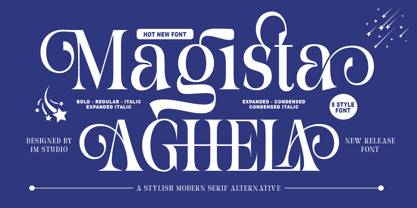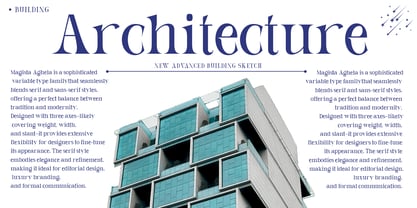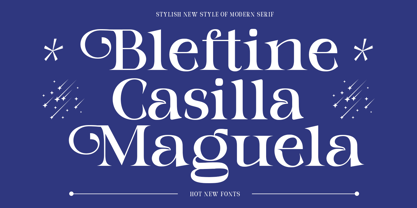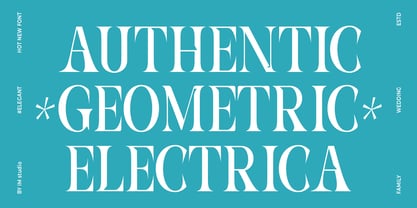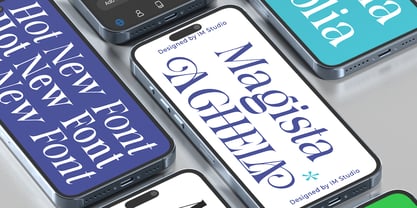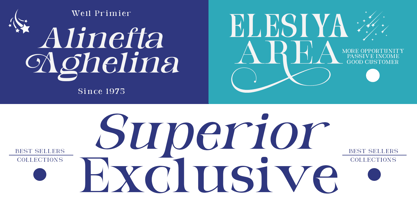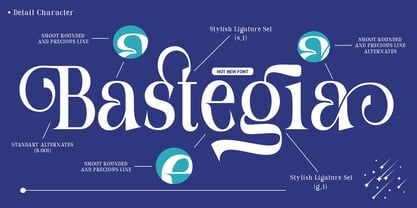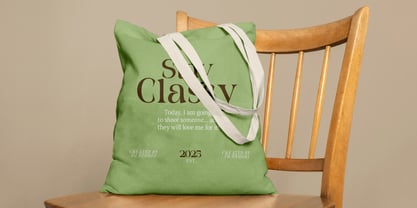
Magista Aghela
by IM Studio
The Magista Aghela Font Family was designed by Ikhsan Maulana and published by IM Studio. Magista Aghela contains 8 styles and family package options. More about this family
Magista Aghela is a sophisticated typeface family that seamlessly blends serif styles, offering the perfect balance between tradition and modernity. Designed on multiple axes—including weight, width, and slant—it gives designers ample flexibility to fine-tune its look. Serif styles embody elegance and refinement, making them ideal for editorial design, luxury branding, and formal communications.
With its expansive design space, Magista Aghela adapts easily to a variety of applications, ensuring legibility and visual harmony across print and digital platforms. Whether used alone or together, the two styles create a cohesive and adaptable typographic system that allows for creative flexibility. Its fine detailing and dynamic range make Magista Aghela an essential tool for designers seeking both aesthetic sophistication and functional adaptability in their typography.